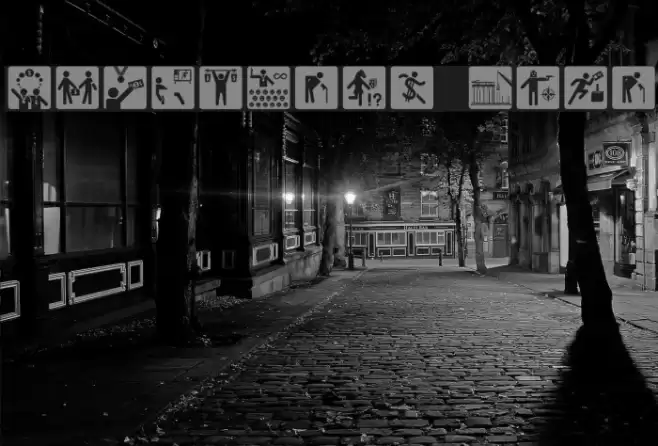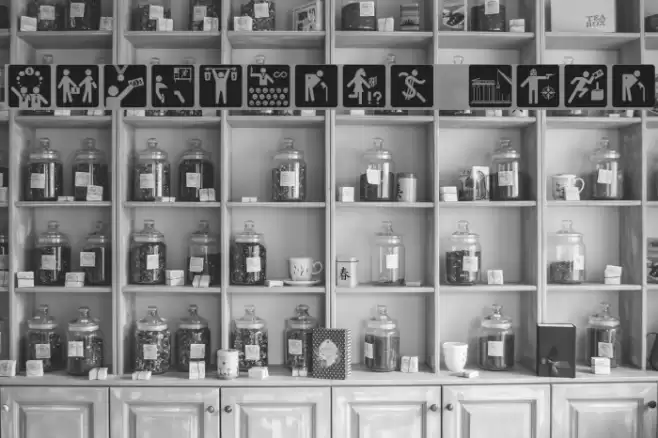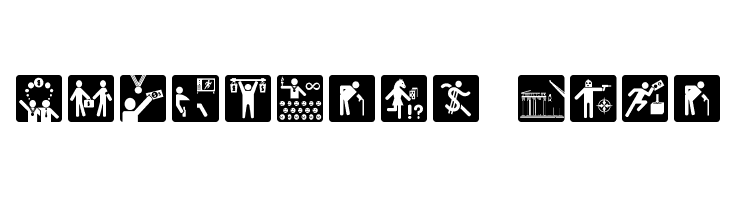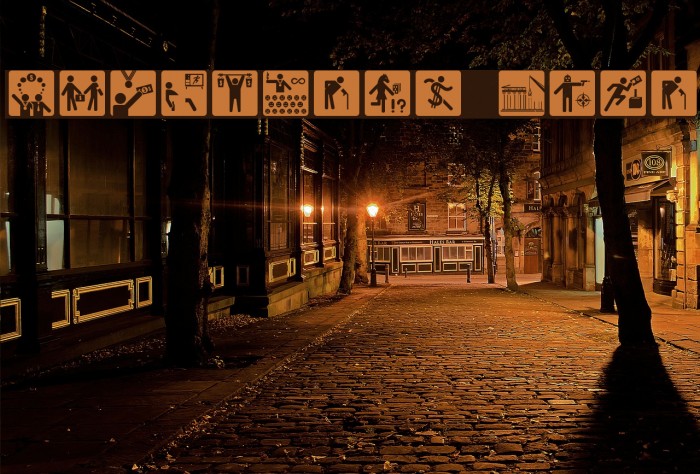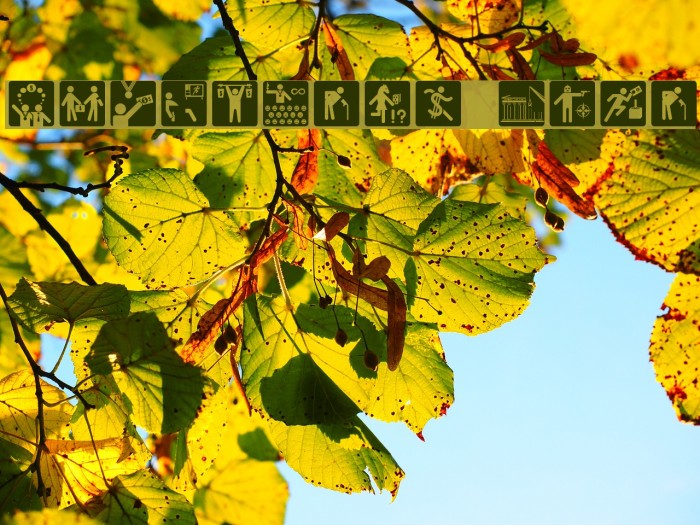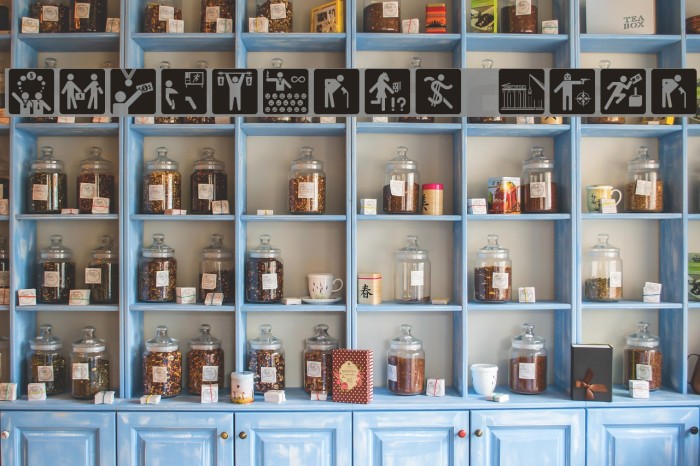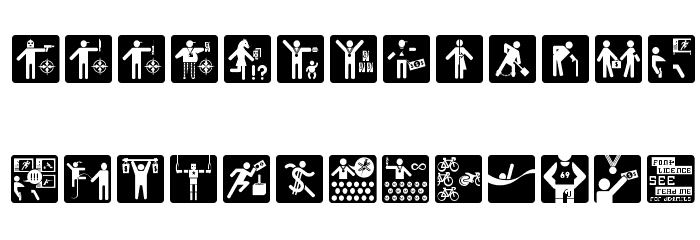
Olympukes Dark Font
Olympukes Dark Description
This is not a traditional font but rather a collection of pictograms or icons. Each character is represented by a unique symbol depicting various humorous or satirical interpretations of athletic and Olympic themes. The style is bold and graphic, with high contrast between the black background and white figures. The icons are playful and designed to convey a sense of humor, often exaggerating or parodying typical sports iconography. The overall design is cohesive, with each symbol maintaining a consistent visual language, making it suitable for projects that require a light-hearted or comedic touch.
A playful set of pictograms parodying athletic themes with bold, graphic style from sports fonts.
- Proposed Projects: Ideal for humorous posters, satirical sports event promotions, or playful graphic design projects that require a unique and entertaining visual element.
- Overall Style: Humorous, Satirical, Playful
- Use Case: Icons, Posters, Graphic Design